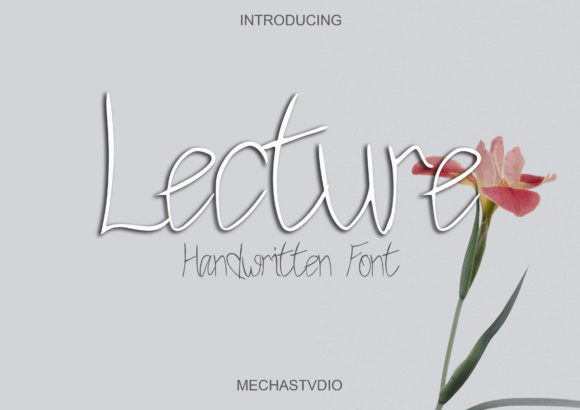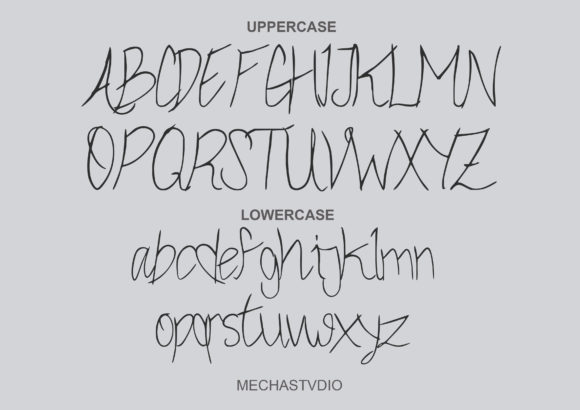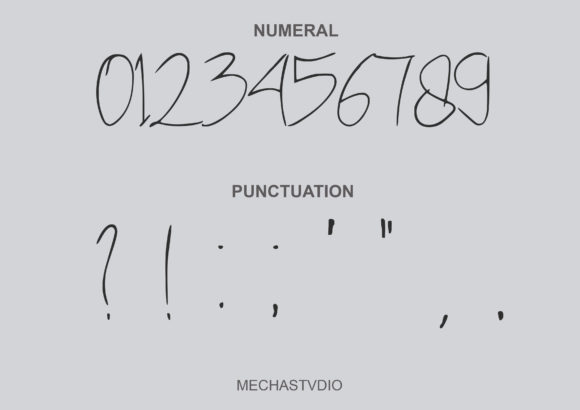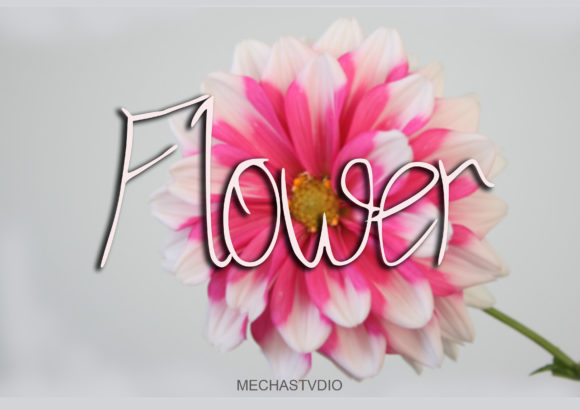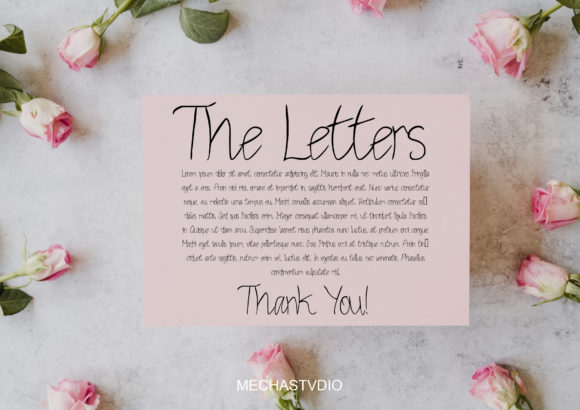
Lecture Font
Lecture font style is a contemporary script font that exudes a sense of modern elegance. Its clean, slender strokes and smooth curves create a visually pleasing and harmonious aesthetic that is sure to resonate with a wide range of design projects.
With its sleek and sophisticated vibe, Lecture font style is poised to make a significant impact on your creative endeavors. Its minimalist yet refined design lends itself well to various applications, making it a versatile choice for your design needs. Whether you’re working on logos, branding materials, invitations, or any other design project, Lecture font style effortlessly complements your vision with its understated yet impactful presence.
The thin and smooth nature of Lecture font style enhances its contemporary appeal, making it a great fit for projects that require a touch of modernity and sophistication. Its versatility allows it to seamlessly integrate into different design contexts, from digital platforms to print materials, ensuring a cohesive and polished look across various mediums.
By incorporating Lecture font style into your designs, you’ll be able to elevate your projects to a new level of visual appeal. Its timeless yet fresh aesthetic adds a touch of refinement that captures attention and communicates a sense of professionalism. Whether used as a primary typeface or as an accent to complement other design elements, Lecture font style’s clean and sleek characteristics are bound to leave a lasting impression.
Embrace the modern charm of Lecture font style and infuse your designs with its clean, thin, and smooth vibe. With its ability to effortlessly enhance the aesthetics of your projects, Lecture font style is sure to become a staple in your collection, serving as a reliable choice for a wide range of design endeavors.